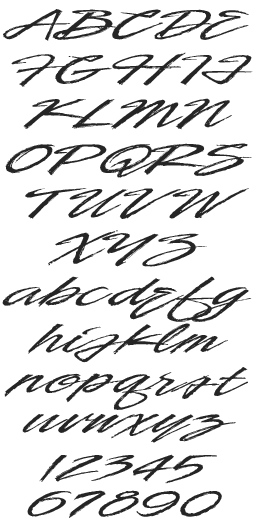
California pin striper Brad King brings us his Ragged Brad script. Having hand painted this style for years, Brad now proudly presents it to you for use in your own projects. Includes several custom ligatures and alternates. This script really makes 'em take notice. Uses include race cars, apparel and wedding invitations (just kidding). Use in conjunction with bolder fonts for nice contrast.
Important! Although the font is well-suited to printing and other media, the numerous tiny holes and pieces that give Ragged Brad it's character make it unsuitable for vinyl cutting at small sizes.
Custom Ligatures & Alternates